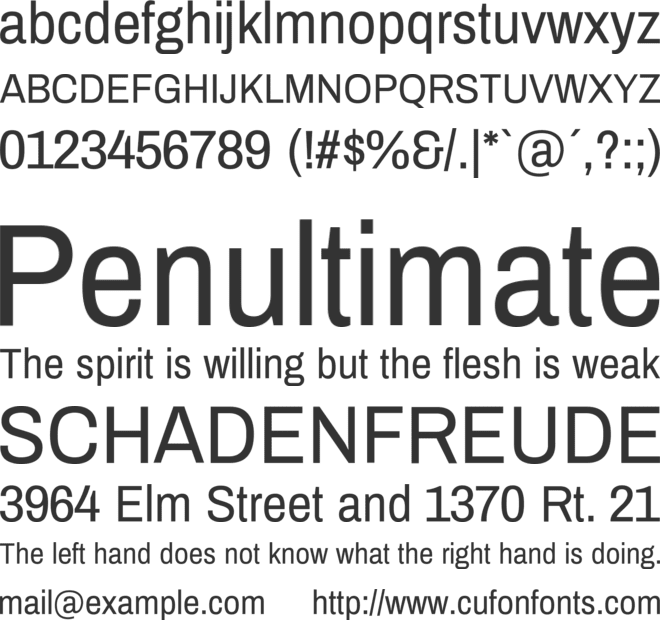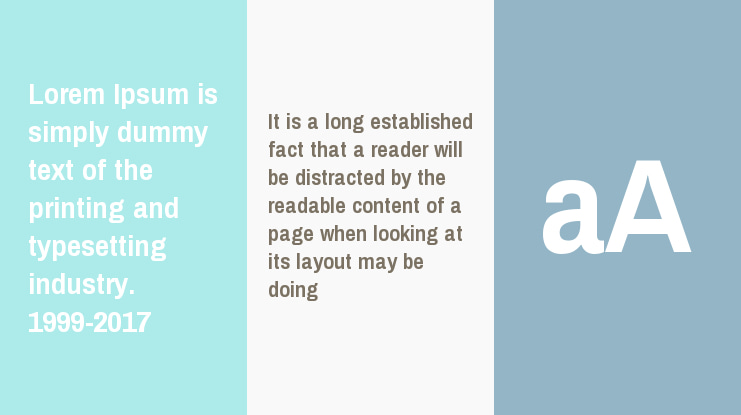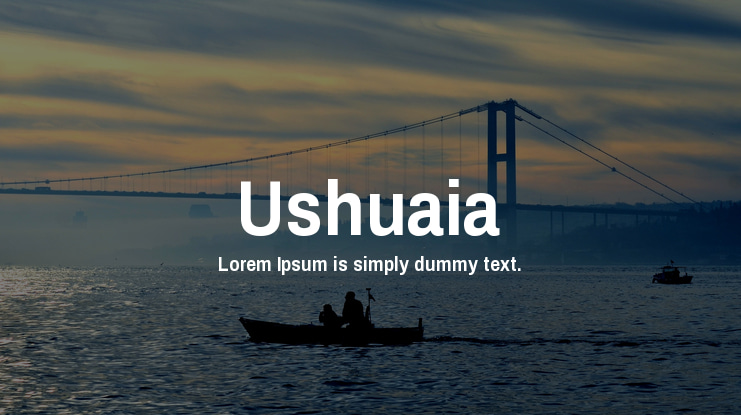
Ushuaia Font Family
Hector Gatti
Ushuaia (named after a city of Argentinian Patagonia) is a modification of Archivo Narrow, with changes being: Expanded by 17 percent with open-source font editor, FontForge, and created new oblique italics. Ushuaia is released under the SIL Open Font License, 1.1. Which comes in this zip file is the full @ font face for Web.